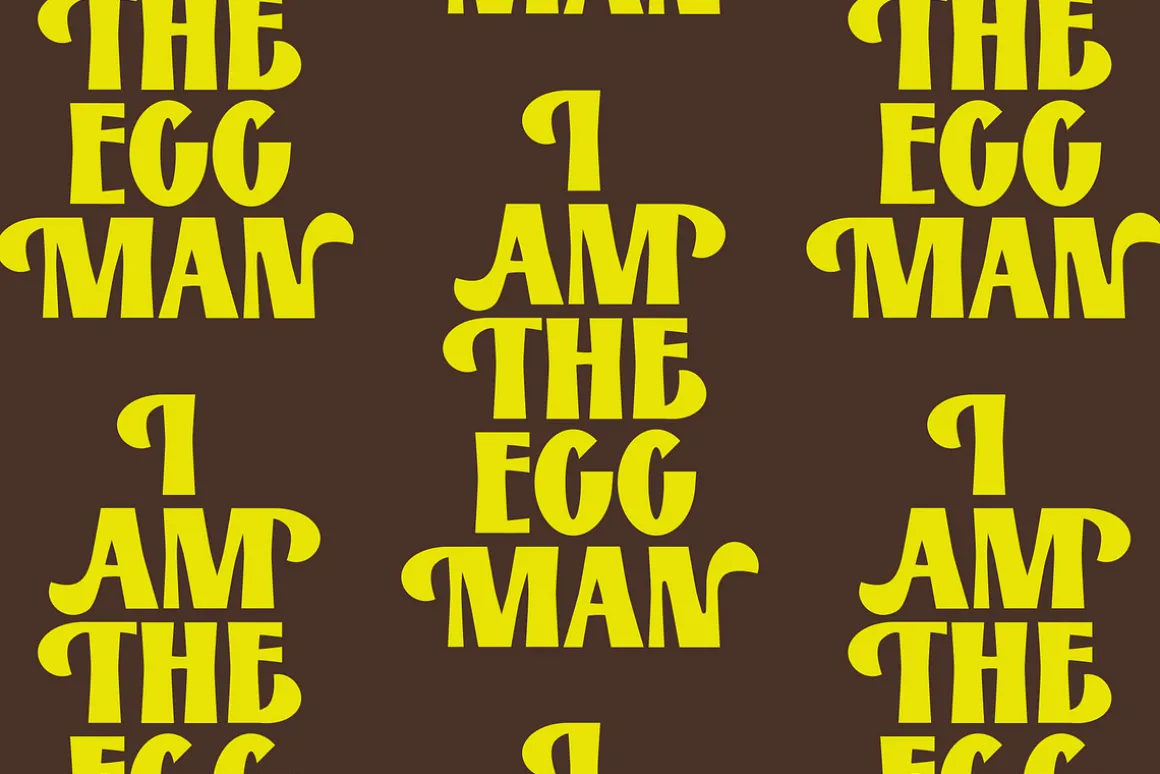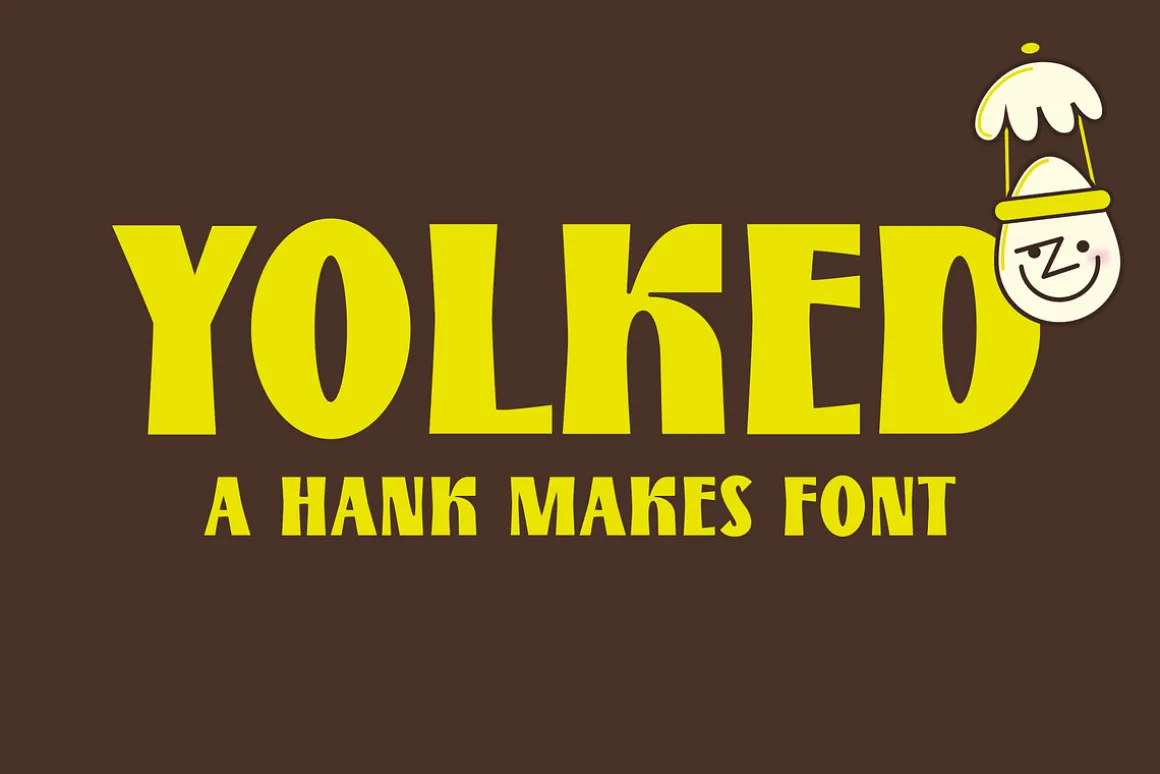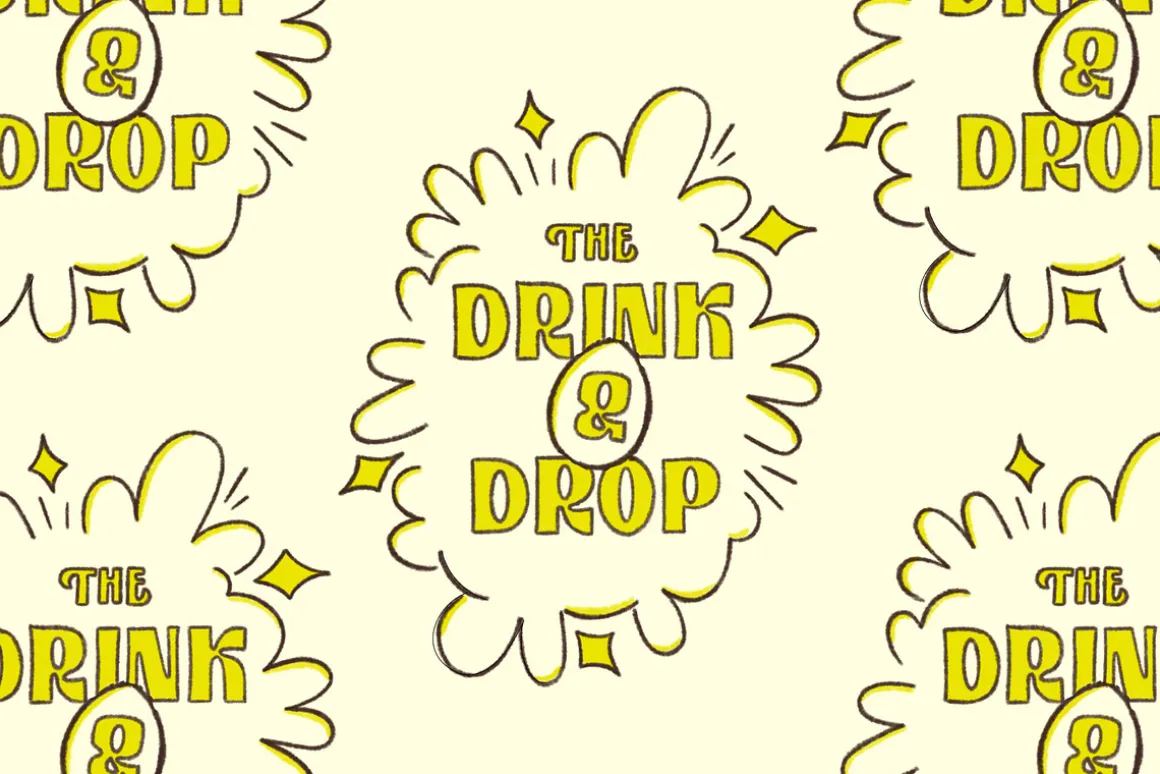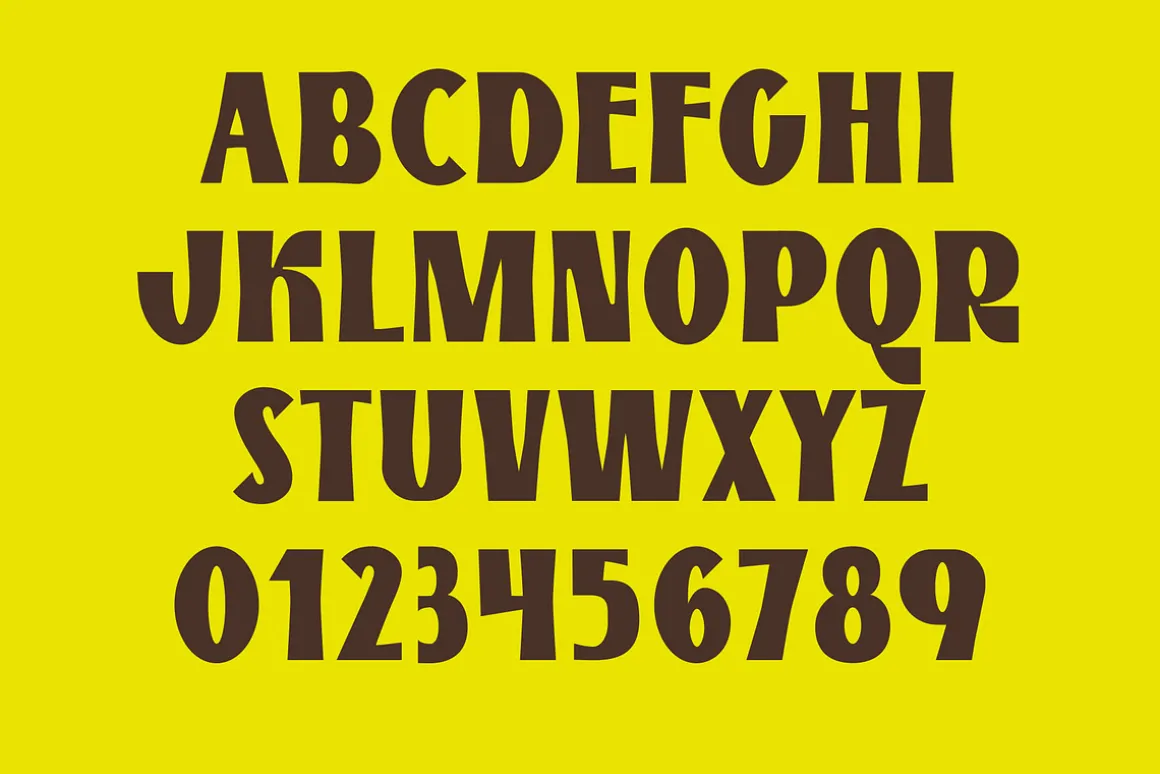
Yolked is an egg-themed font designed by Hank Makes for the Drink N Drop, an egg drop challenge and business mixer taking place as part of Portland Design Month 2024. All proceeds from this font will go towards supplies for the event.